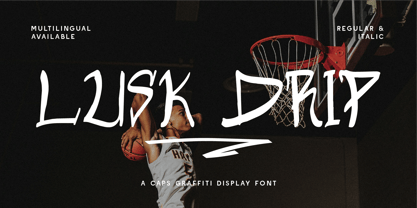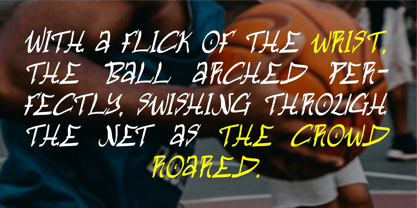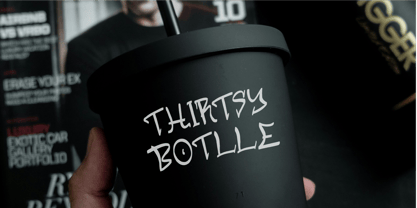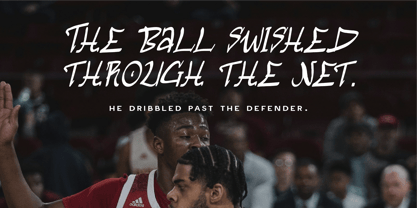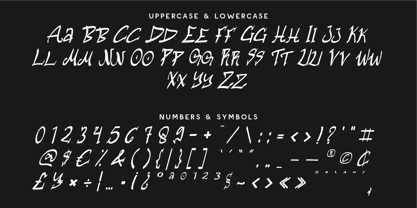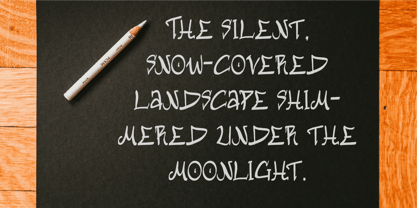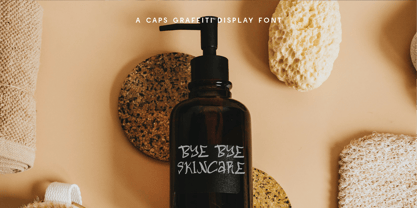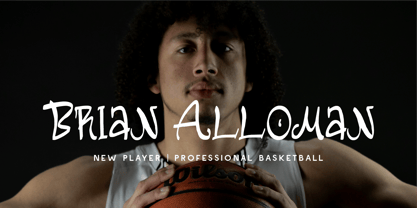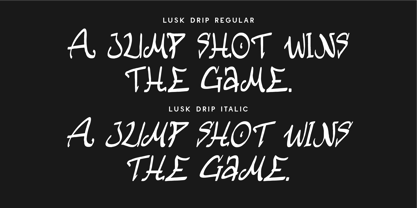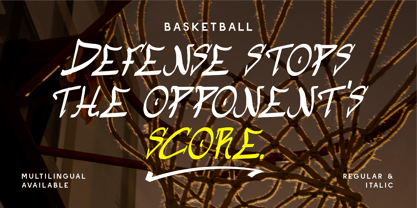
CF Lusk Drip
The CF Lusk Drip Font Family was designed by Gilang Mei Nugraha, Frederik Aristaputra and published by Indotype. CF Lusk Drip contains 2 styles and family package options. More about this family
Bring street heat to your designs with Lusk Drip, a caps graffiti display font that oozes with confidence, movement, and attitude. Featuring sharp marker-style strokes, exaggerated forms, and raw drippy elements, this typeface captures the energy of urban sports, graffiti culture, and creative rebellion.
From basketball posters and streetwear branding to music visuals, event flyers, and lifestyle merch, Lusk Drip dominates the scene with its bold letterforms and eye-catching presence. Available in Regular and Italic, and packed with multilingual support, it’s a slam dunk for any designer ready to flex.
Why Choose Lusk Drip?
- 🏀 Streetball Swagger: Sharp, drippy graffiti strokes give your designs urban impact.
- ✍️ All-Caps Expression: Bold uppercase forms for strong, loud typography.
- 🎧 Perfect for Hype Brands & Creatives: Music, sports, fashion, or anything built to disrupt.
- 🌍 Multilingual Ready: Includes numbers, symbols, and accents for global designs.
- 💥 Two Styles Included: Regular & Italic versions give your work added rhythm and motion.
- Regular and Italic